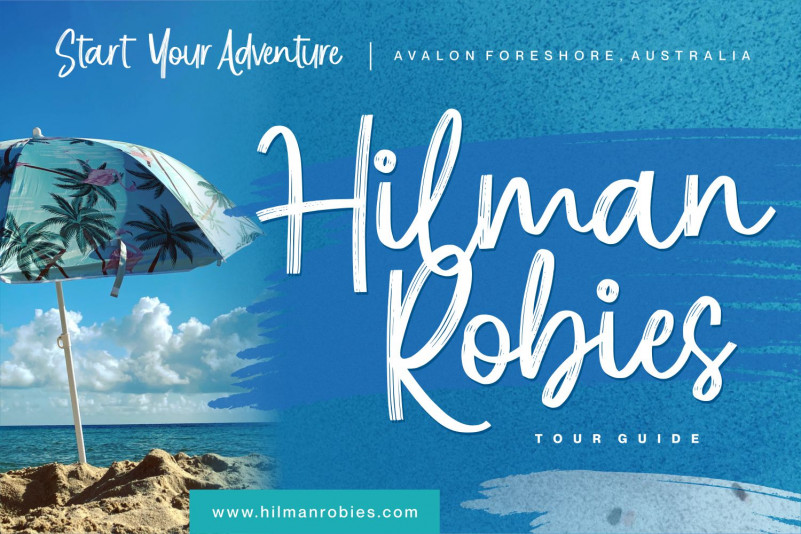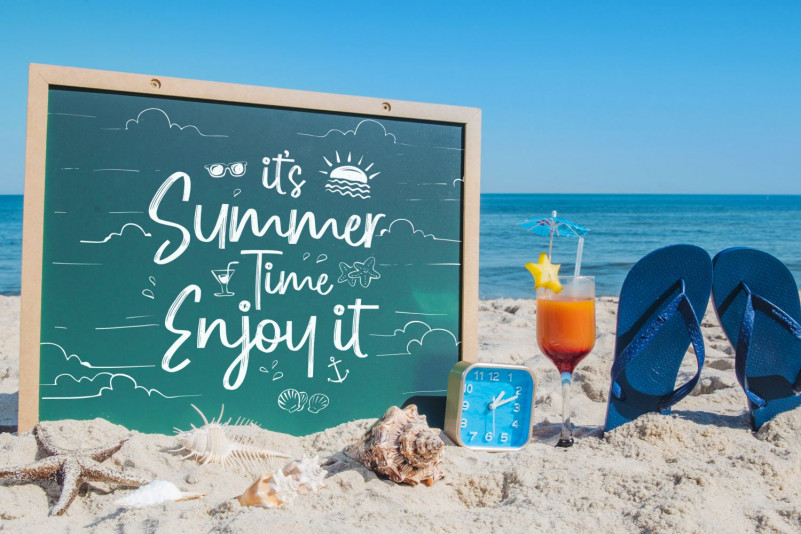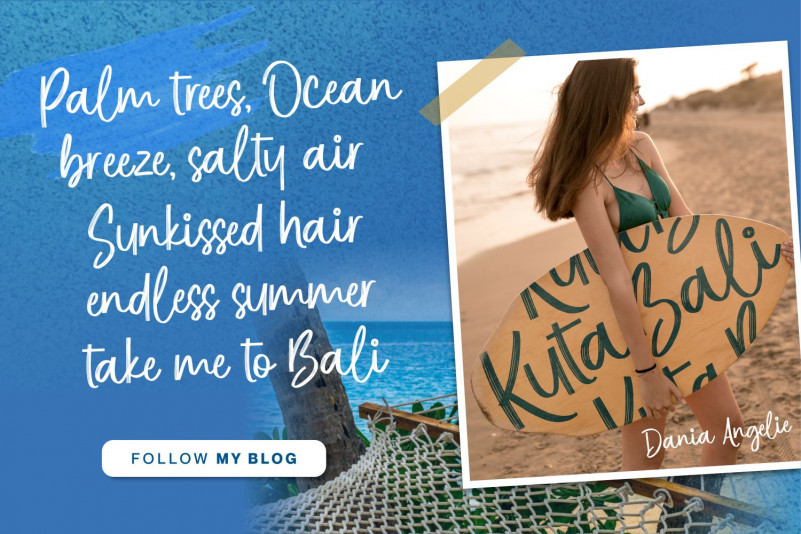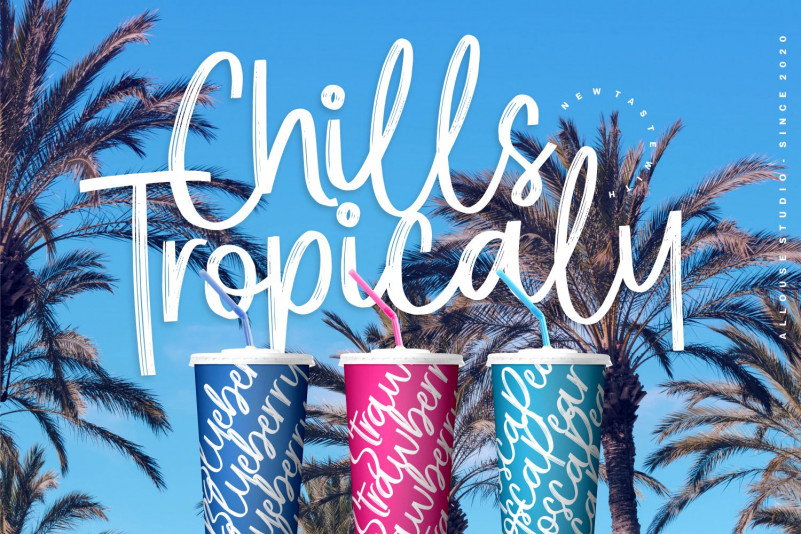
Blue Season Brush Font
This is a lovely and relaxed script font that exudes adaptability and class. This font was particularly crafted for those who need a beautiful and refreshing look to their designs.